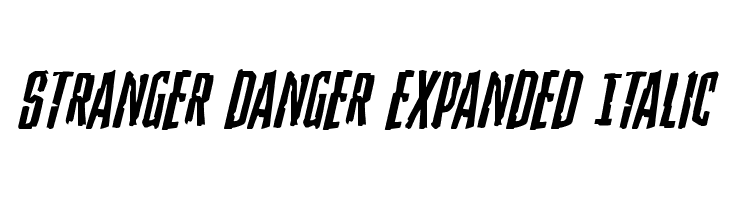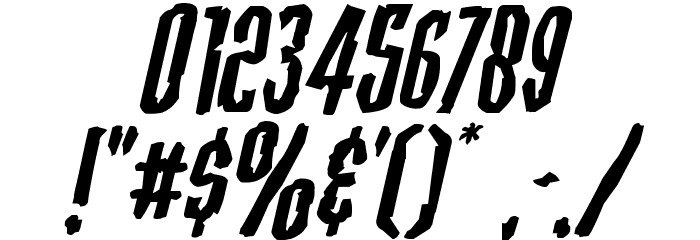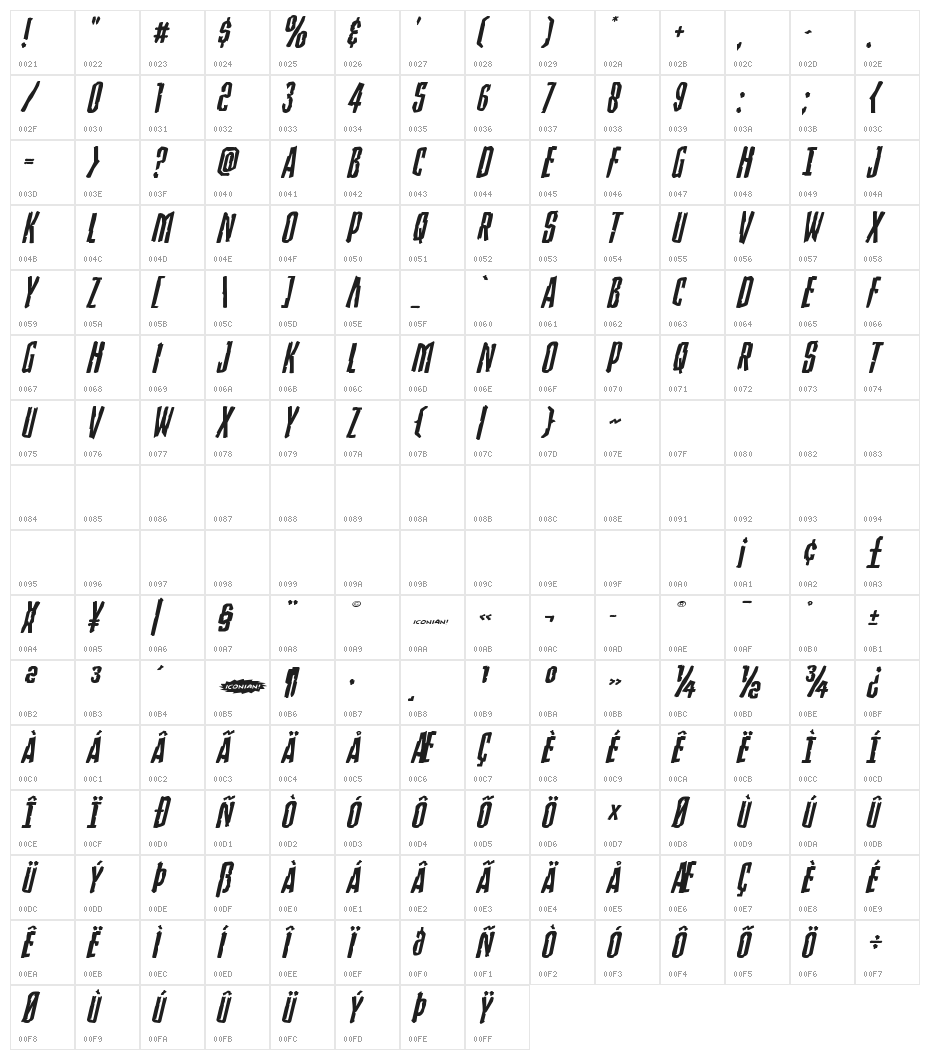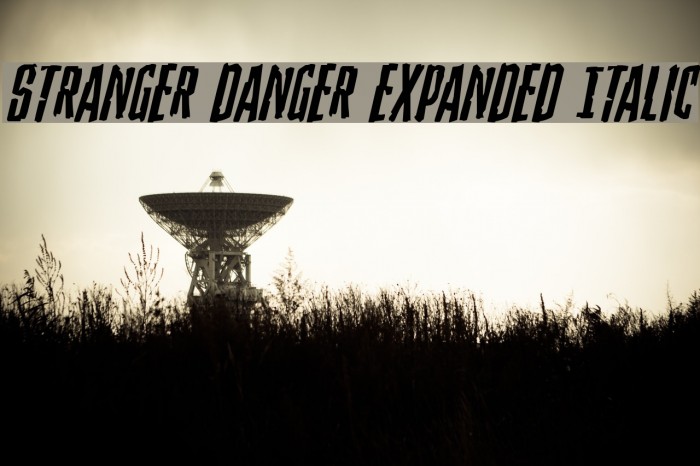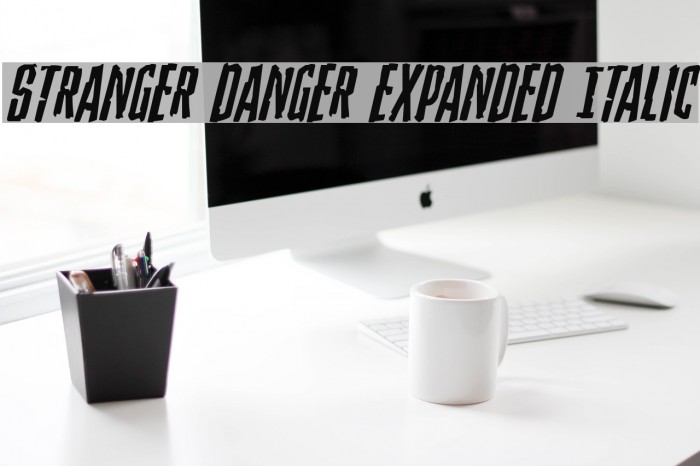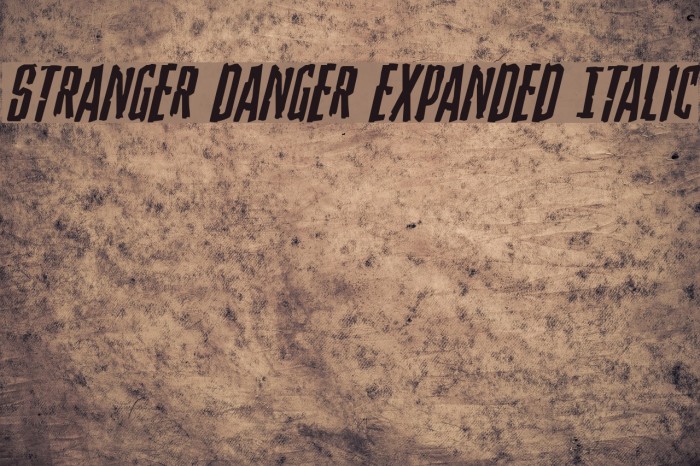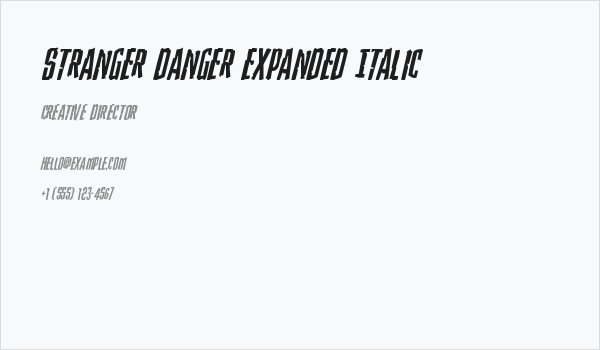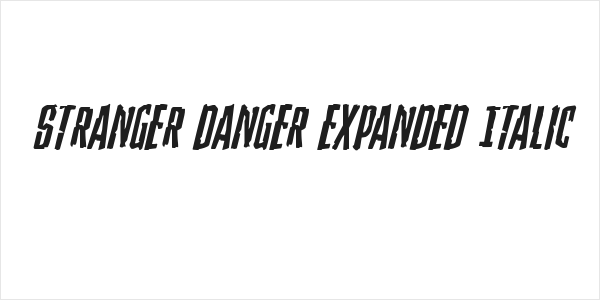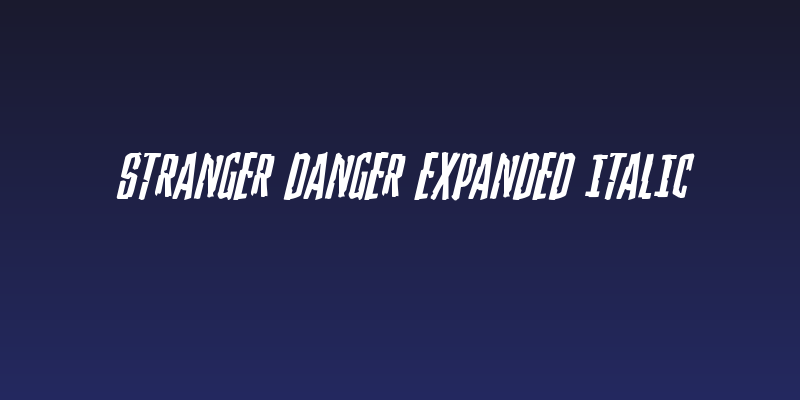
Stranger Danger Expanded Italic Font
Stranger Danger Expanded Italic Description
This font features a bold and dynamic style with an expanded and italicized form, giving it a striking and energetic appearance. The characters are sharply angled, creating a sense of movement and urgency. The uppercase letters are particularly prominent, with a strong presence that commands attention. The numbers and special characters maintain the same boldness and angularity, ensuring consistency across all glyphs. This font is well-suited for designs that require a dramatic and impactful look, such as posters, headlines, and branding materials.
| Proposed Projects | Ideal for posters, headlines, branding, and any design needing a dramatic impact. |